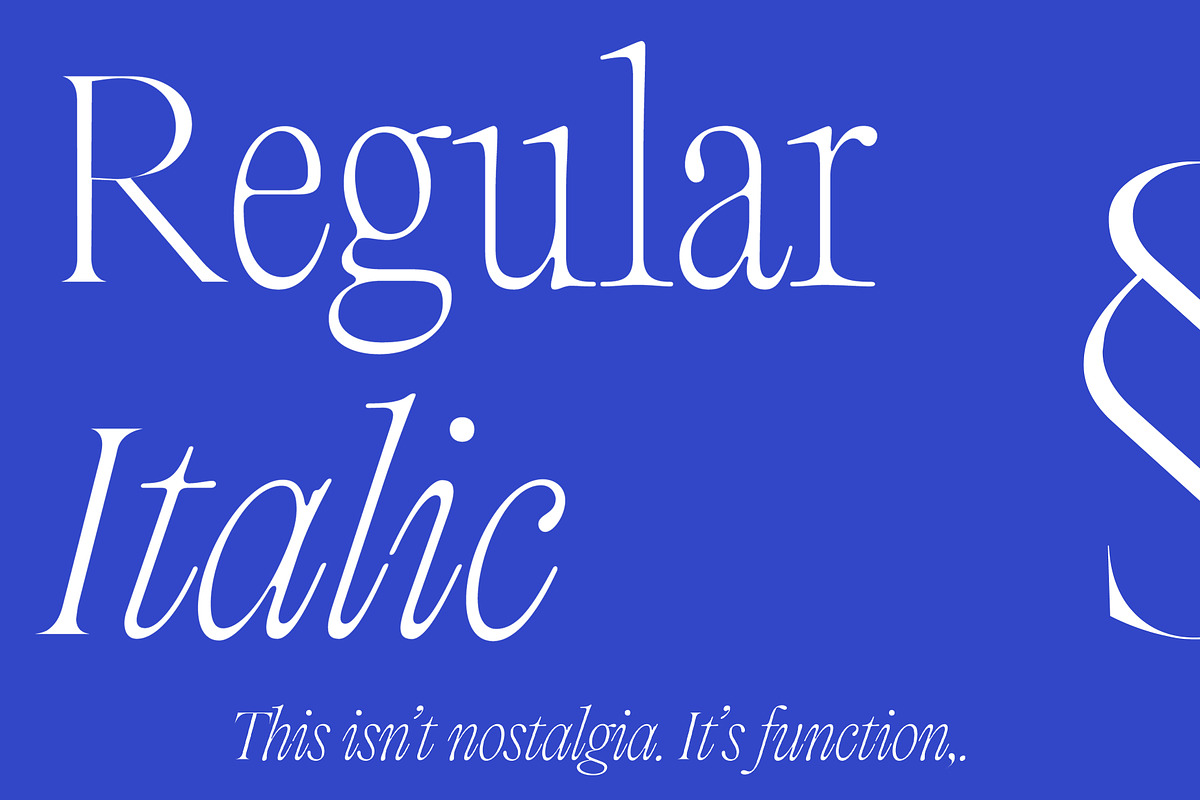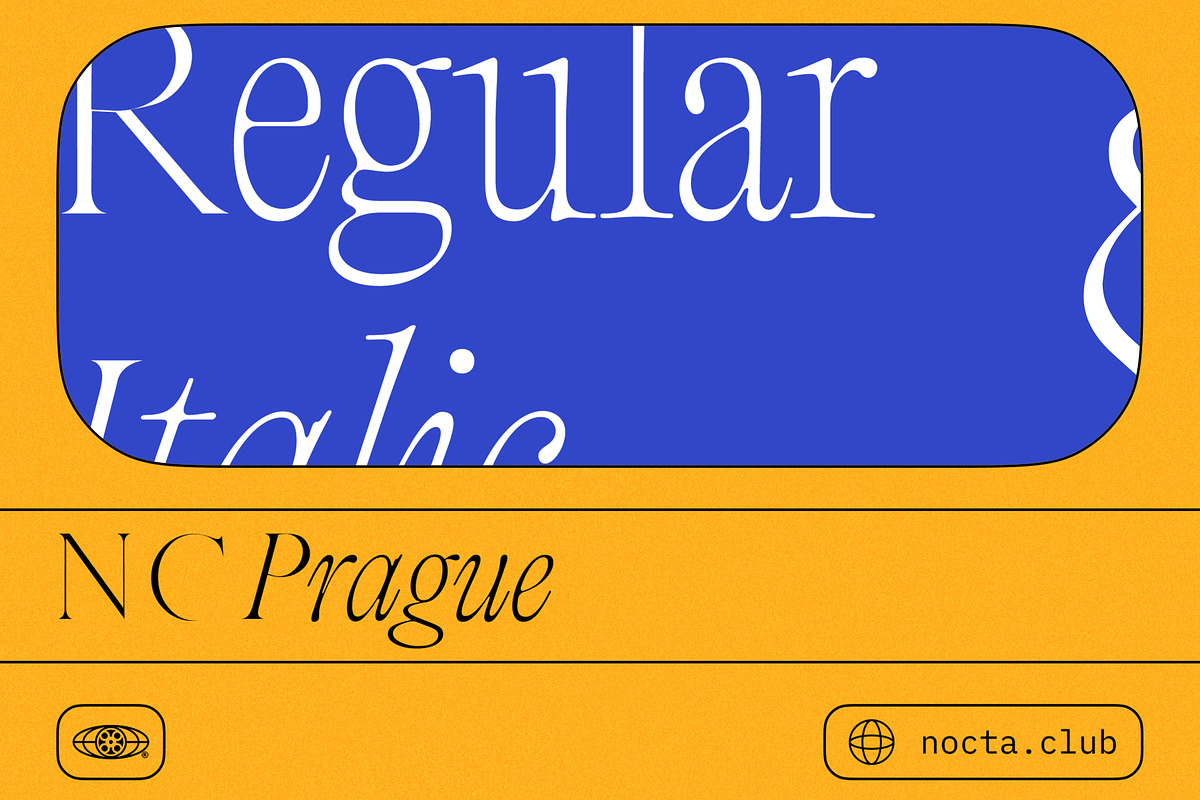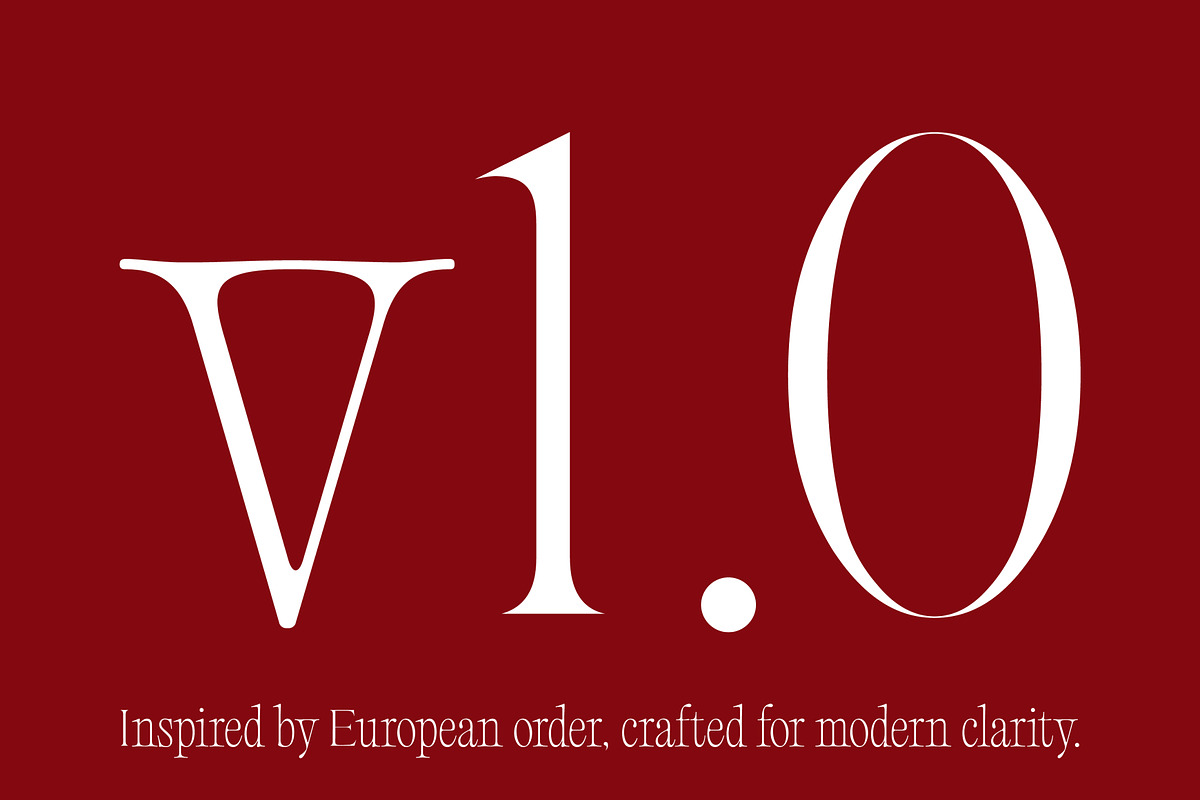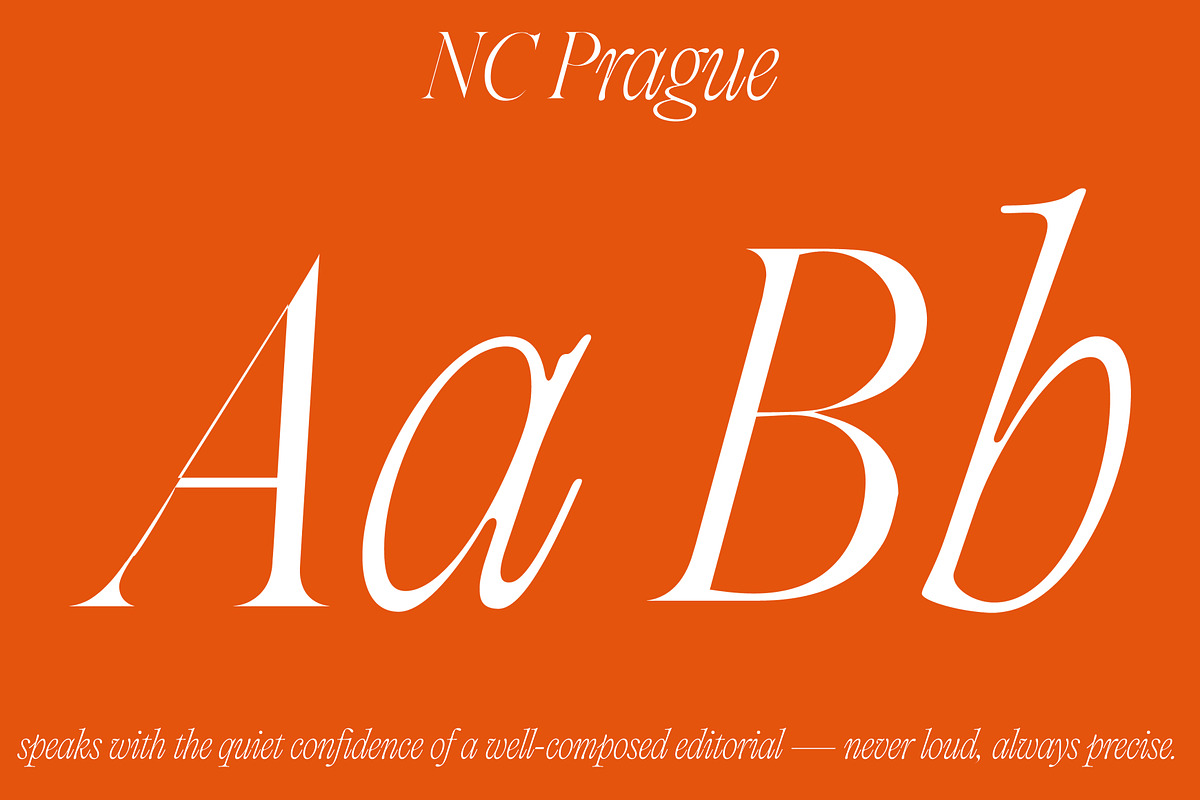
NC Prague — Grotesque Geometry
NC Prague blends the functionality of a grotesque with the finesse of humanist detailing. Inspired by Central European signage and early 20th-century industrial typography, Prague carries a sense of authority and elegance without being overstyled. Its letterforms are precise and upright, but softened by carefully sculpted terminals and inner shapes that give it warmth and readability. With Regular and Italic styles, it's ideal for designers seeking a clean yet characterful voice across identity, editorial, and product design.